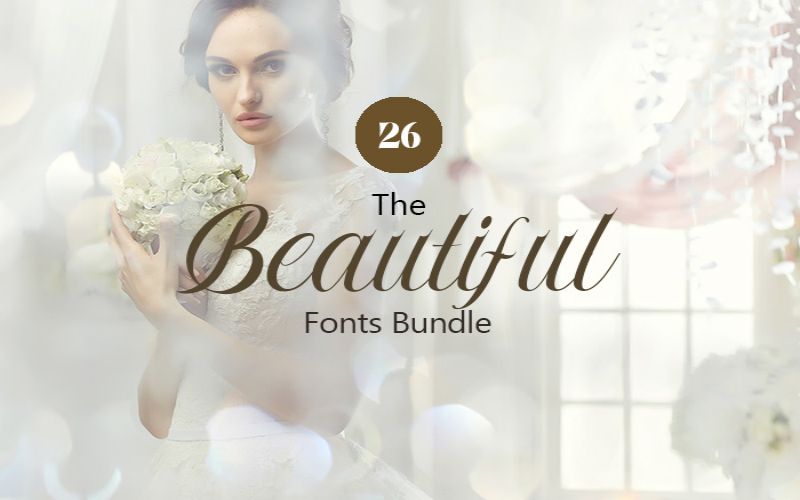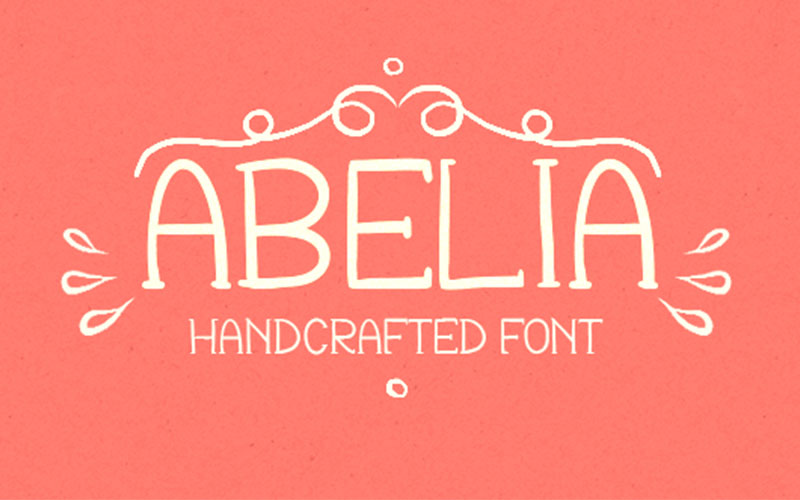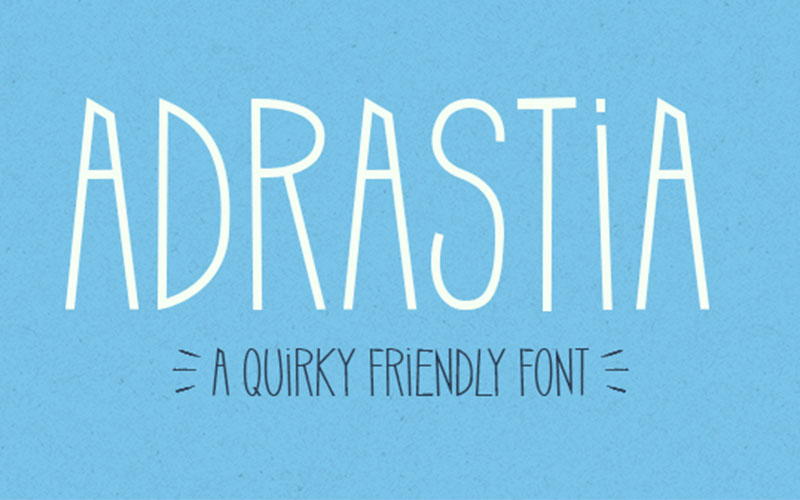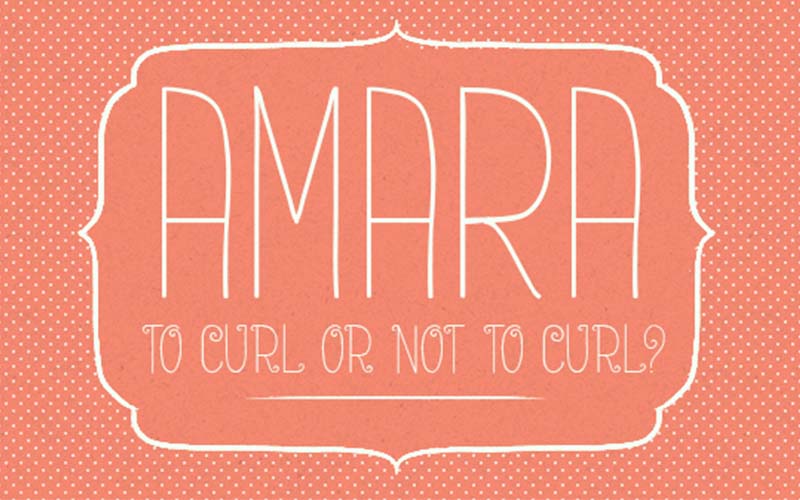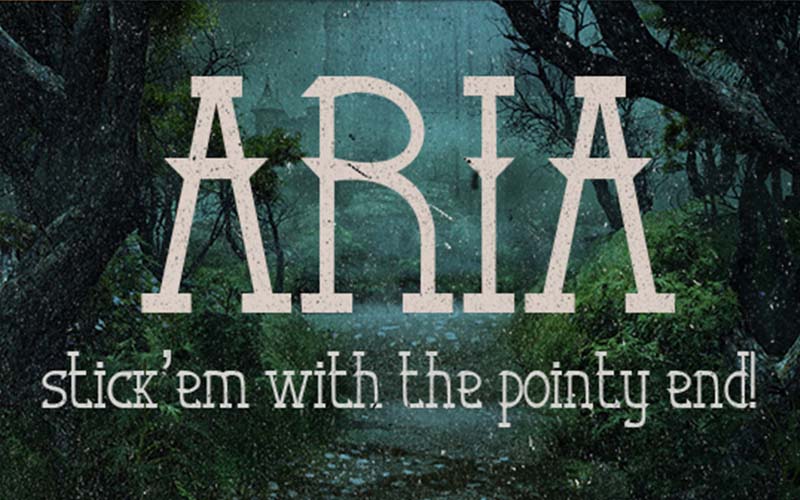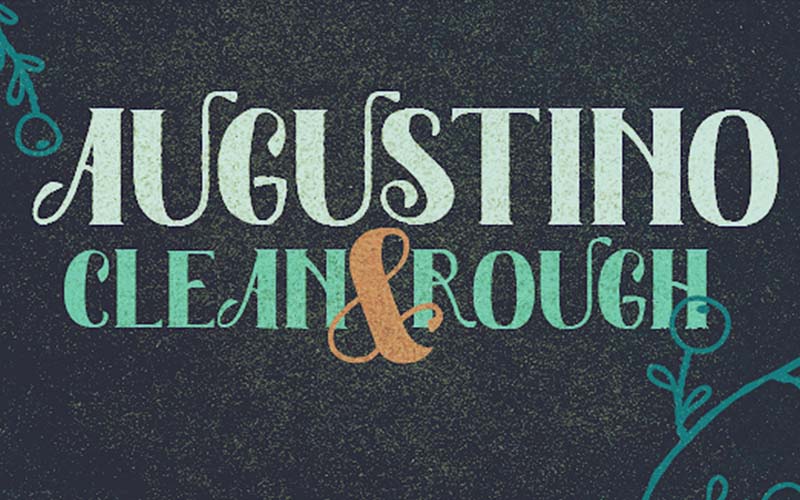
The Beautiful Fonts Bundle
26 Beautiful Fonts At Your Service!
Here we apprise you of another 26 beautiful fonts. The wide and unique Fantonello font, for example, is immensely popular. Franz is another charming font. The clean and fresh, Fresh Juice font is always popular. There’s also Good Jacket, Gustav, and Inkscapade fonts. Of course, go boom-boom with the Kapow font as well!
The bold Klangdam font never fails to draw attention. The Laydon font is characteristically laidback. The Rolo font is simply quirky! To get your wild side rolling, go for the Wilde Side font. Wuggle is a cute and friendly font. The handcrafted Tall Marker font is also an especially popular choice. The Skinny font is exactly as its name suggests – skinny! Robotika font is clearly geeky! Clearly, there’s an unrelenting choice on offer here!
• Wide range of styles – from classically elegant to stylish modern fonts